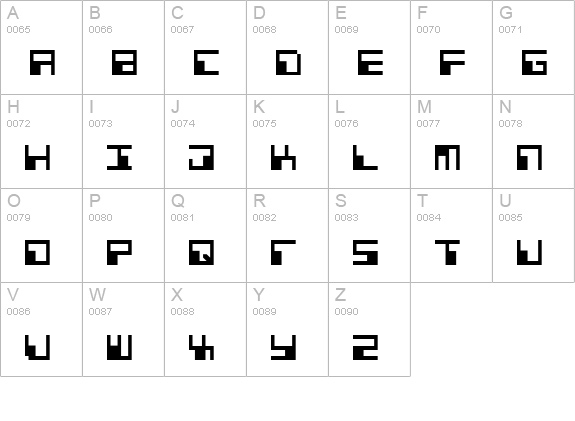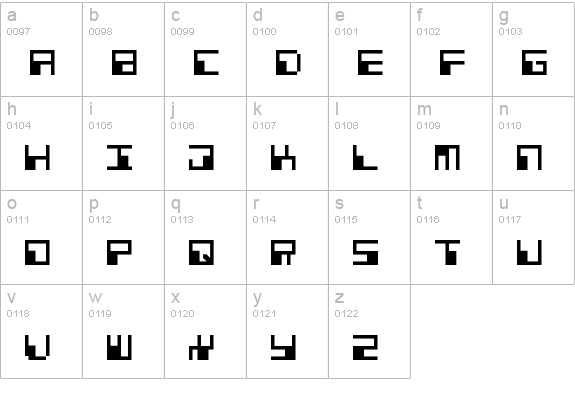
Phaser Bank font is a sleek and futuristic typeface that exudes a sense of cutting-edge style and sophistication. With its sharp lines and modern aesthetic, this font is perfect for creating eye-catching designs in various projects. Whether you're working on a tech-related website, a sci-fi poster, or a sleek branding project, Phaser Bank font will add a touch of contemporary flair. Best of all, Phaser Bank font is completely free to download at FontsMarket.com. This means you can easily incorporate this stunning font into your designs without breaking the bank. Don't miss out on the opportunity to elevate your projects with the striking Phaser Bank font - download it today and let your creativity soar!